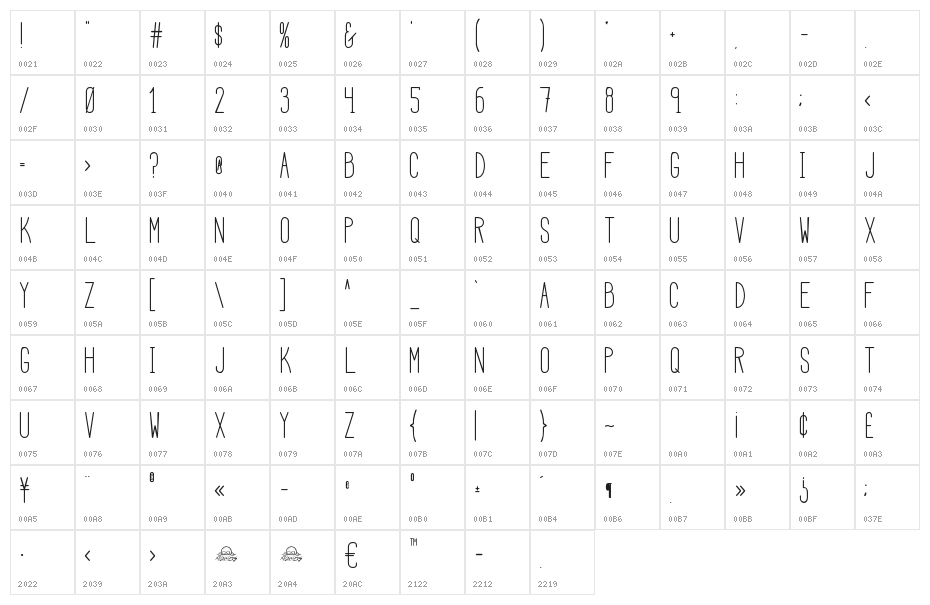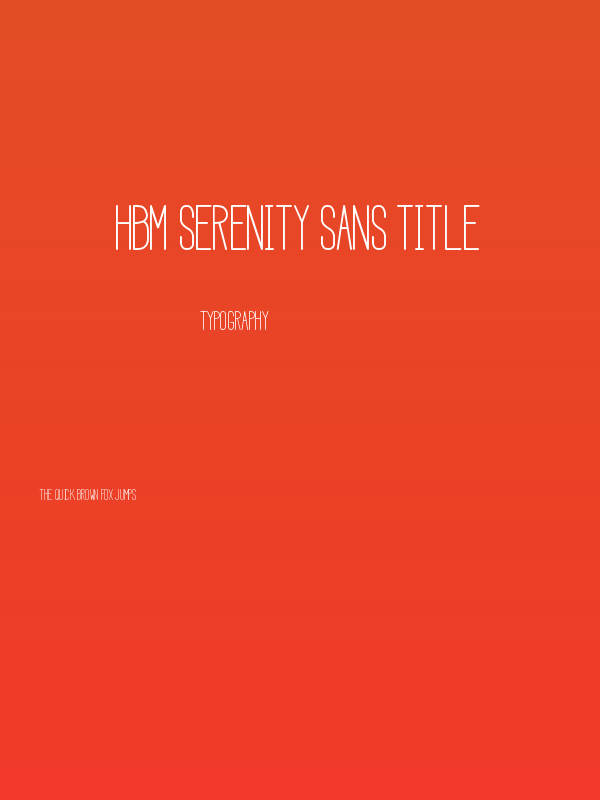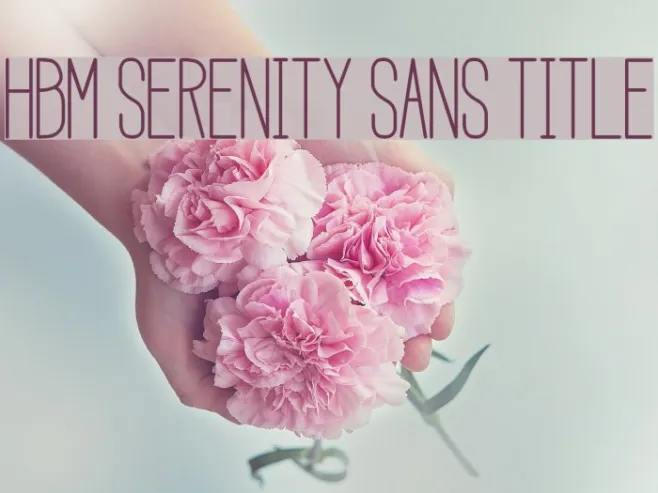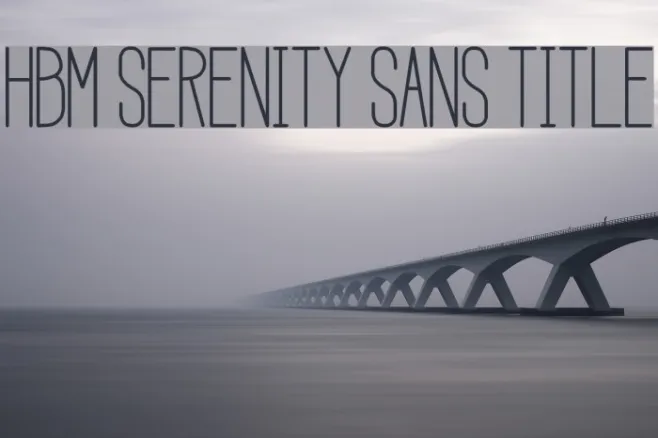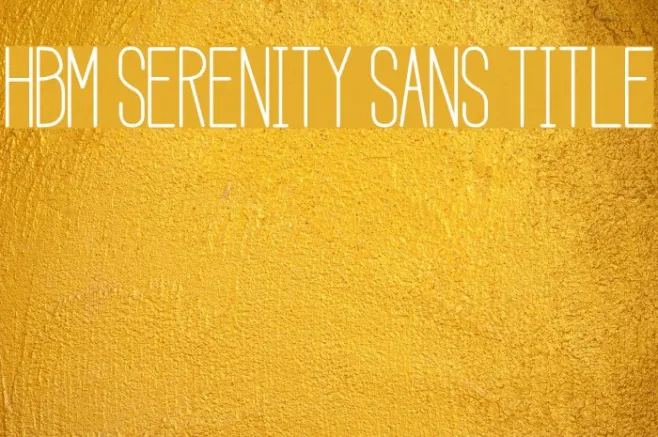
HBM Serenity Sans Title Font
HBM Serenity Sans Title Description
This font features a clean and modern sans-serif style with tall, narrow letterforms. The characters are evenly spaced, contributing to a sleek and streamlined appearance. The uppercase and lowercase letters maintain a consistent height, emphasizing verticality. The numerals are distinct and align well with the overall aesthetic, while the special characters are designed to complement the alphabetic characters. The thin strokes and minimal contrast give it a contemporary and elegant feel, making it suitable for a variety of design applications.
| Use Case | Headlines, Body text, Logos |
| Proposed Projects | Ideal for use in branding, editorial design, and minimalist web design projects. |